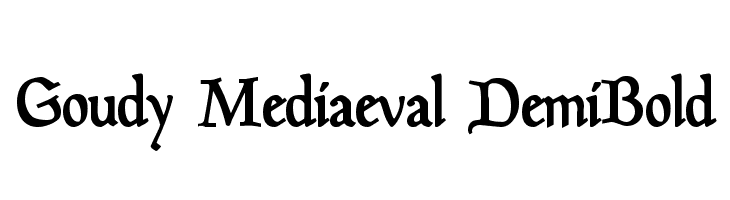
A classic serif typeface with elegant proportions and moderate contrast.
A classic serif font with a medieval flair, featuring bold strokes and elegant serifs.
A classic serif typeface with elegant, calligraphic elements and a vintage appeal.
A medieval-inspired font with decorative serifs and elegant flourishes.
An ornate and decorative font with intricate design elements.